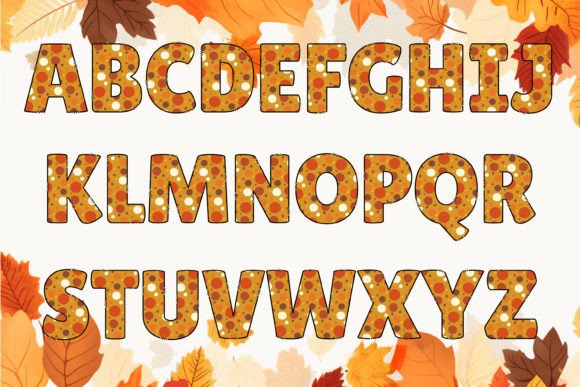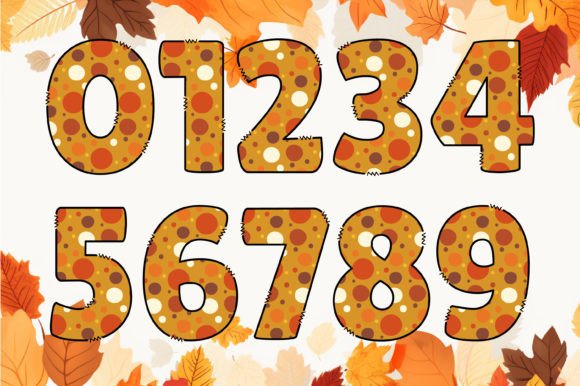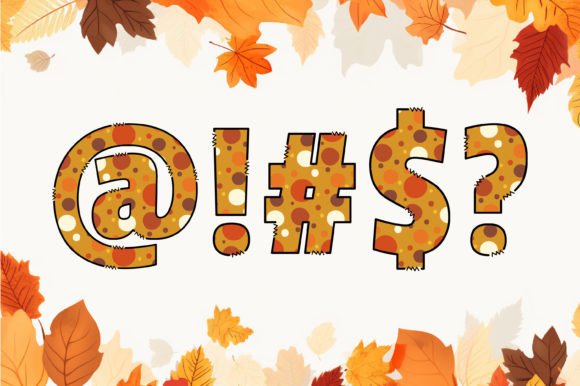
Discover the Delightful World of Autumn Joy Font
As the seasons change and autumn arrives, designers and crafters often seek inspiration from the warm, cozy, and playful atmosphere that comes with it. One font that perfectly captures this essence is the Autumn Joy Font. In this article, we’ll explore the characteristics, uses, and benefits of this delightful font, and how it can add a touch of whimsy to your designs.
What is Autumn Joy Font?
Autumn Joy Font is a typeface designed to evoke the feeling of joy and playfulness associated with the autumn season. Its unique blend of curly and rounded letterforms creates a friendly, approachable, and lively atmosphere, making it perfect for designs that require a touch of personality.
Characteristics of Autumn Joy Font
Autumn Joy Font boasts several distinctive features that make it an excellent choice for various design projects:
- Whimsical letterforms: The font’s curly and rounded letterforms give it a playful and artistic feel, making it ideal for designs that require a touch of personality.
- Easy to read: Despite its playful nature, Autumn Joy Font remains clear and easy to read, ensuring that your message is conveyed effectively.
- Versatile: This font can be used in a wide range of design projects, from children’s books to posters, invitations, and greeting cards.
Uses of Autumn Joy Font
These fonts are often used in designs that aim to convey a playful or artistic feel, such as:
- Children’s books: Autumn Joy Font is perfect for children’s books, as it creates an engaging and immersive reading experience for young audiences.
- Posters and flyers: The font’s playful nature makes it an excellent choice for posters and flyers that require attention-grabbing headlines and titles.
- Invitations and greeting cards: Autumn Joy Font adds a touch of warmth and personality to invitations and greeting cards, making them more special and memorable.
Benefits of Using Autumn Joy Font
Using Autumn Joy Font in your designs offers several benefits:
- Unique and eye-catching: The font’s distinctive letterforms ensure that your design stands out from the crowd.
- Emotional connection: Autumn Joy Font creates an emotional connection with your audience, making your design more relatable and engaging.
- Flexibility: The font’s versatility allows you to use it in various design projects, from digital to print.
Tips for Using Autumn Joy Font
To get the most out of Autumn Joy Font, consider the following tips:
- Pair with complementary fonts: Combine Autumn Joy Font with other fonts to create a harmonious and visually appealing design.
- Experiment with colors: The font’s playful nature lends itself well to bright, bold colors that evoke the autumn season.
- Keep it simple: Don’t overcomplicate your design – Autumn Joy Font shines when used in simple, yet effective designs.
Autumn Joy Font is a delightful typeface that captures the essence of the autumn season. Its whimsical letterforms, easy readability, and versatility make it an excellent choice for designers and crafters looking to add a touch of playfulness to their designs. Whether you’re creating children’s books, posters, invitations, or greeting cards, Autumn Joy Font is sure to bring a smile to your audience’s faces.
Get Creative with Autumn Joy Font
Ready to incorporate Autumn Joy Font into your designs? Explore the font’s possibilities and get creative with your projects. With its unique blend of playfulness and readability, Autumn Joy Font is sure to become a favorite in your design toolkit.